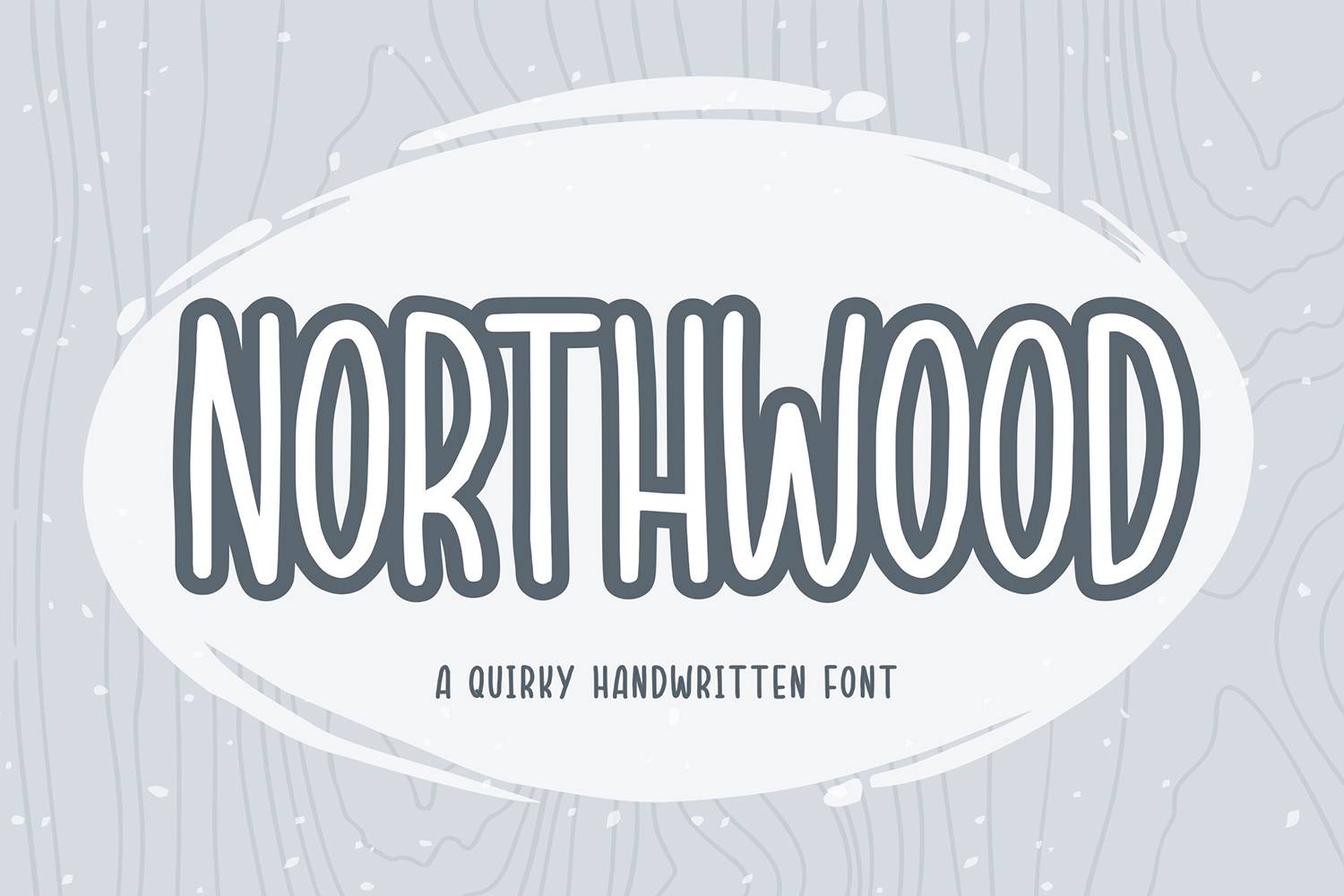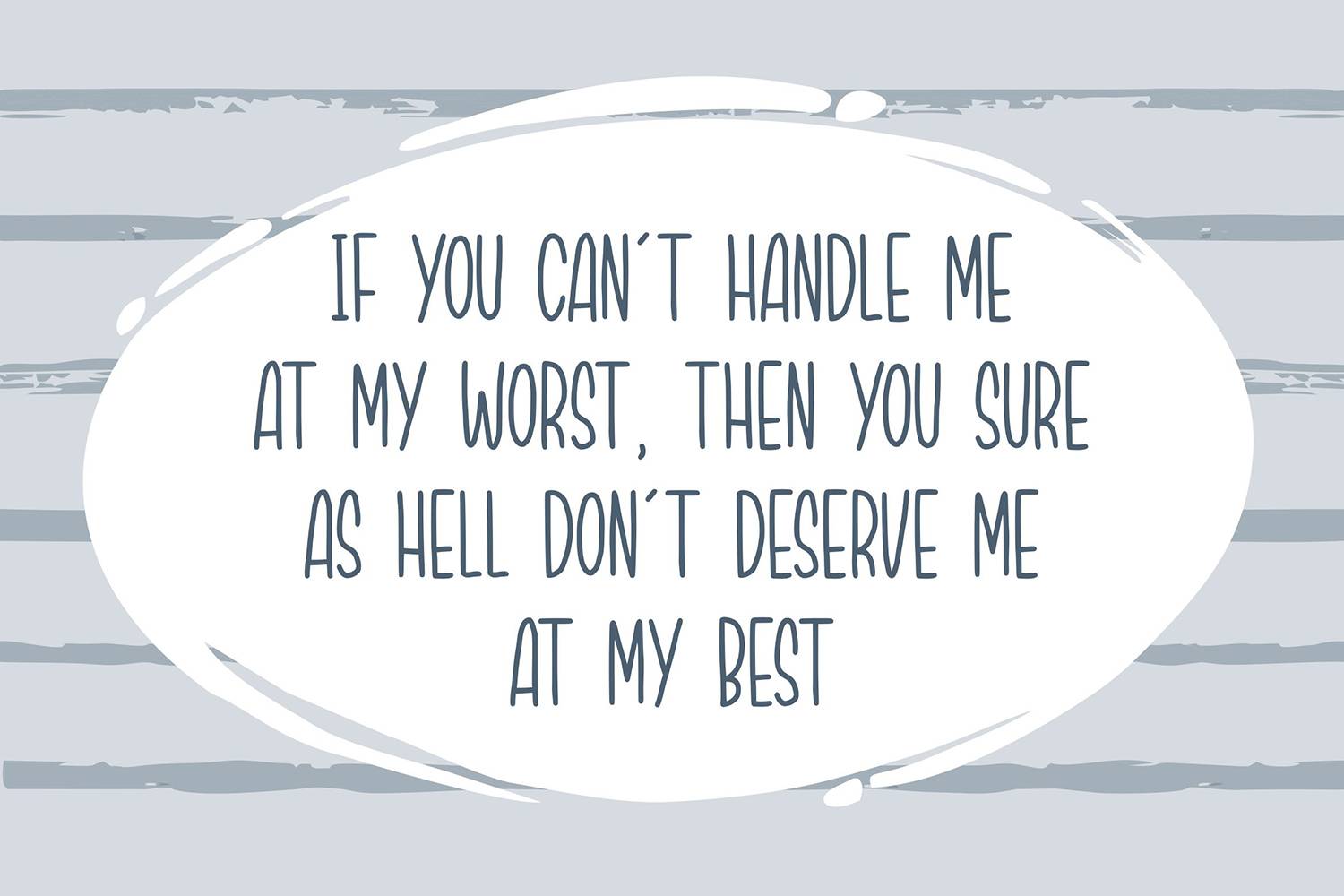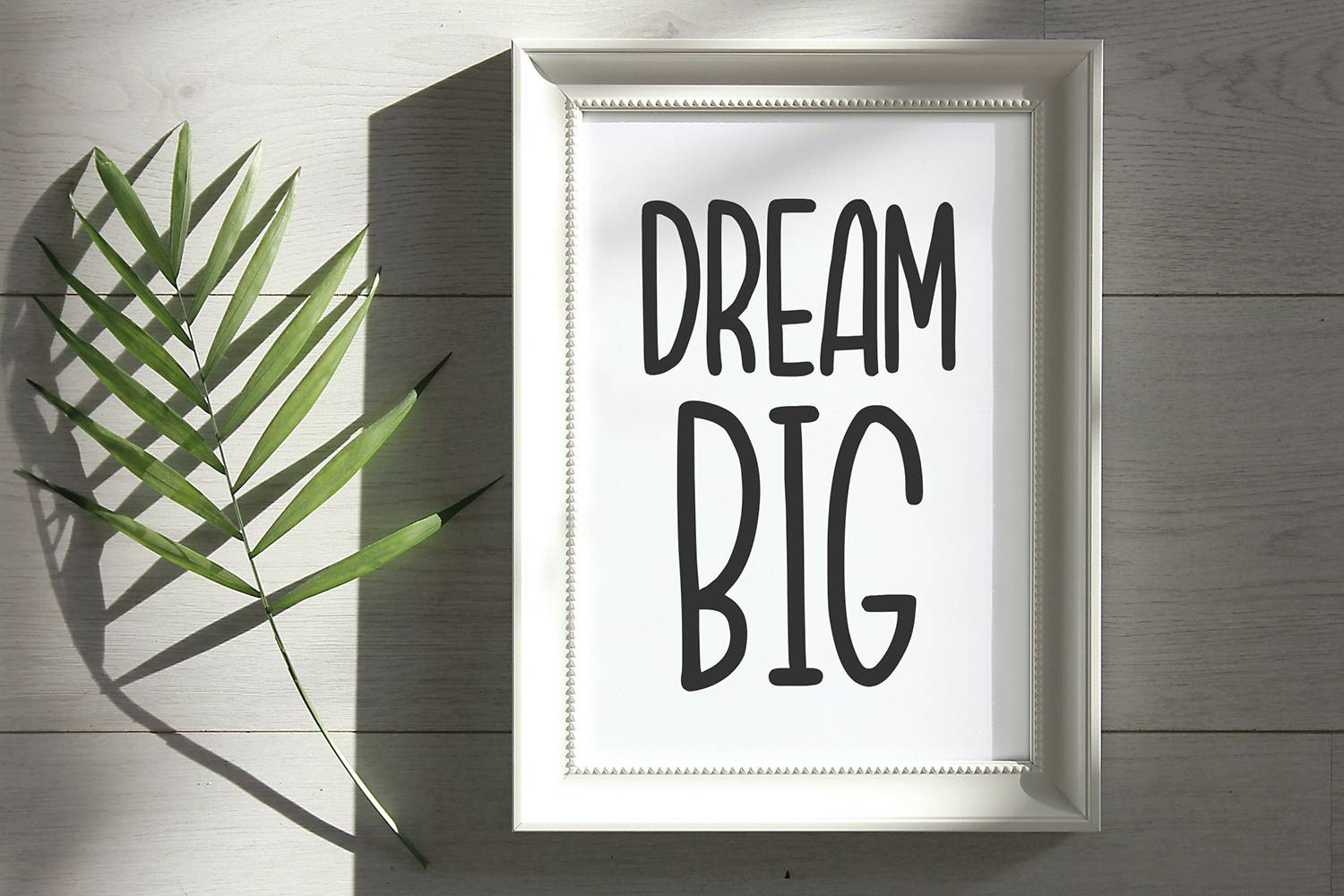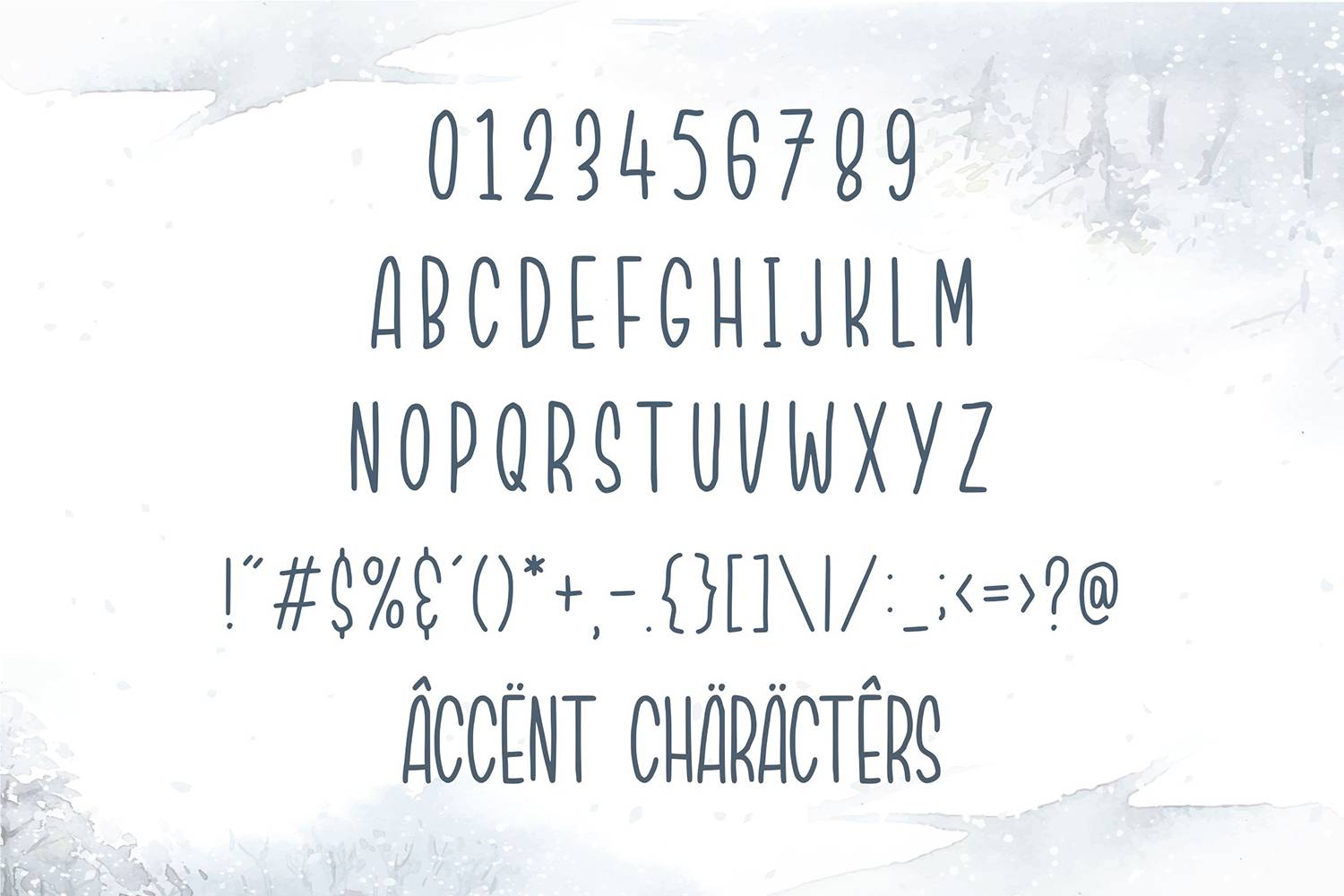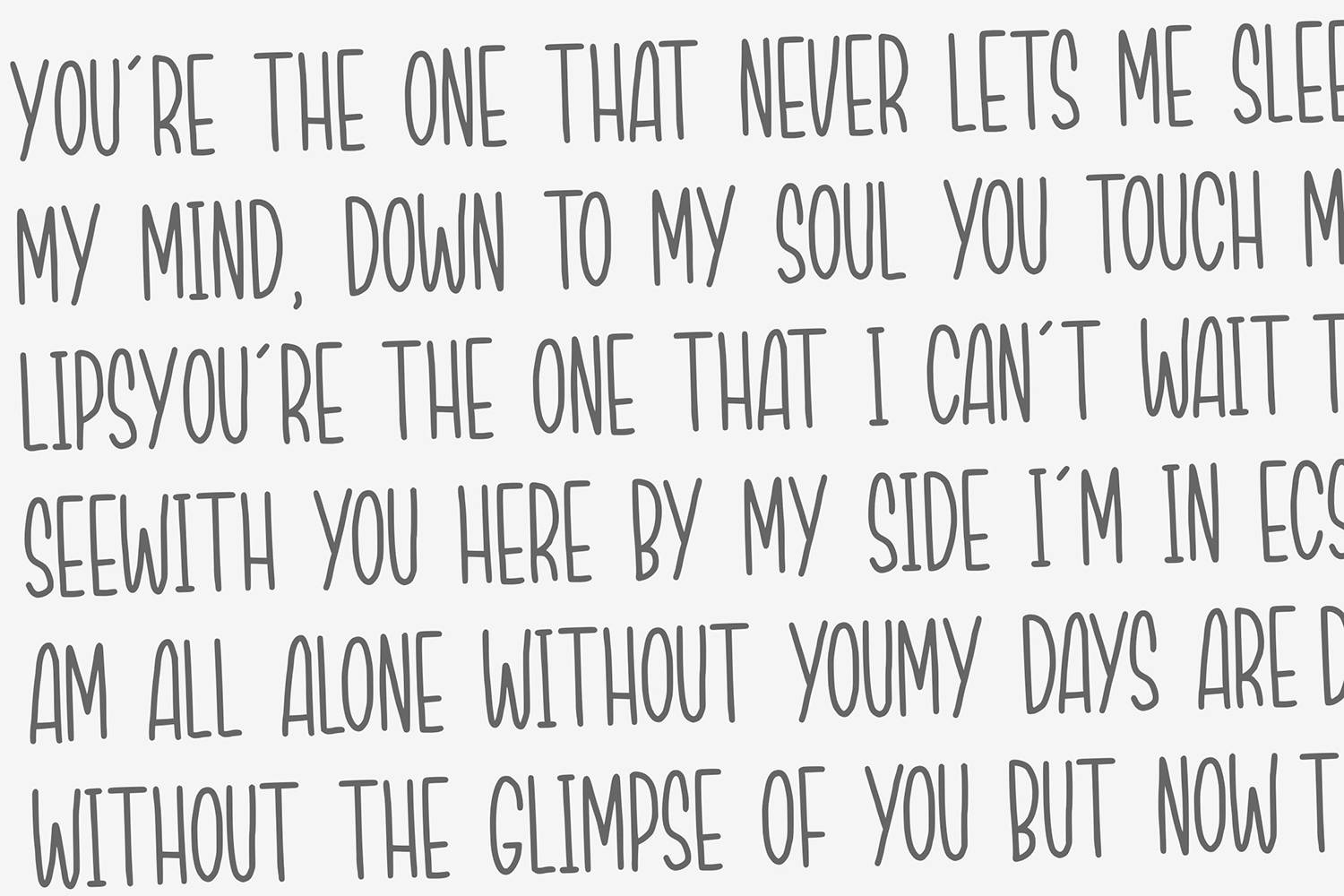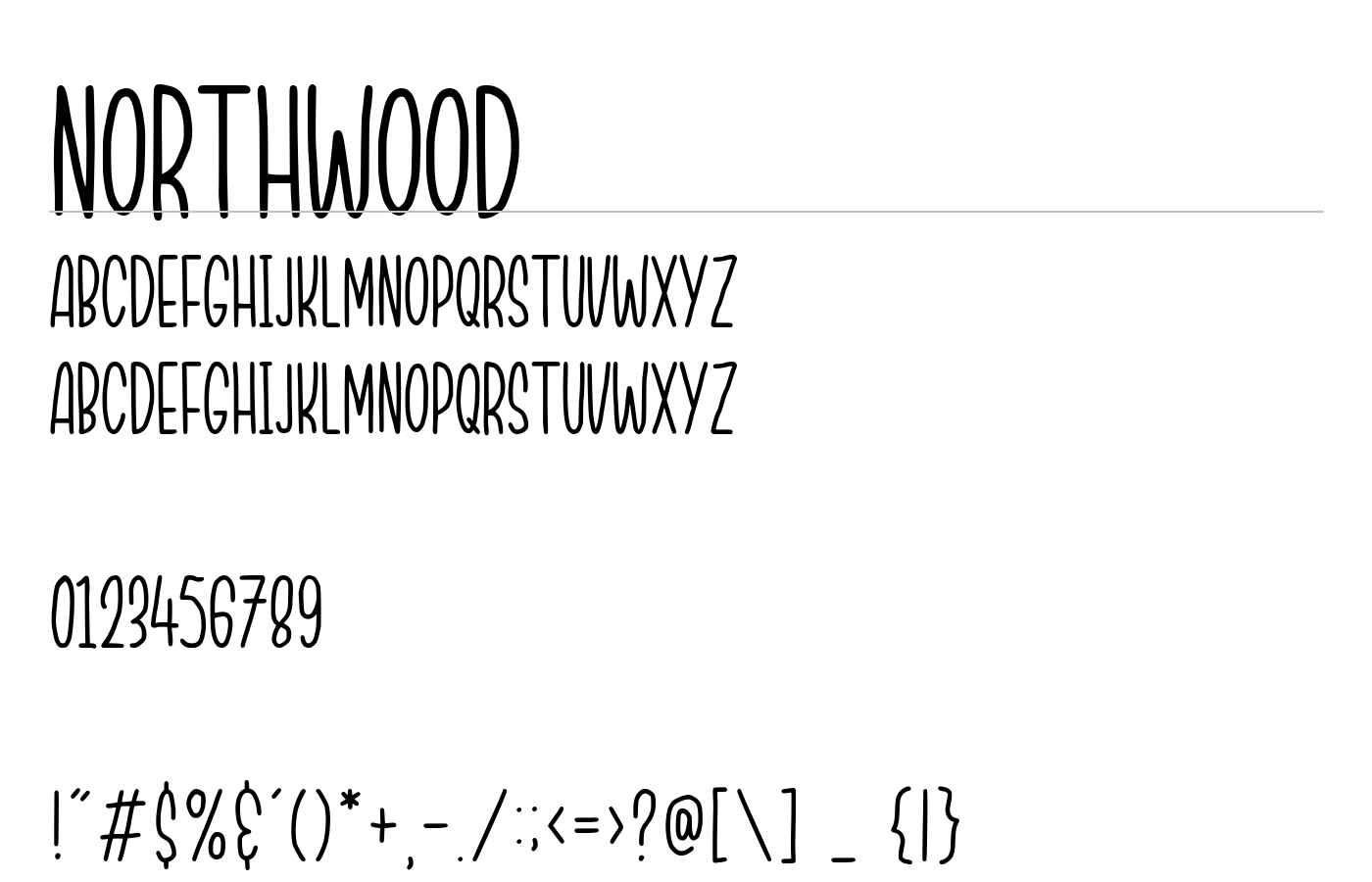
Northwood is a tall, narrow sans serif font with a quirky, hand-drawn feel, characterized by its uneven stroke widths and playful irregularities. Its condensed letterforms and light weight give it a whimsical, casual personality that works well for creative and informal designs, making it ideal for headlines, posters, and branding that seeks a friendly, approachable vibe. This font adds a unique charm with its distinctive style, perfect for projects looking to stand out with a personal touch.
Northwood Font
About Northwood Font